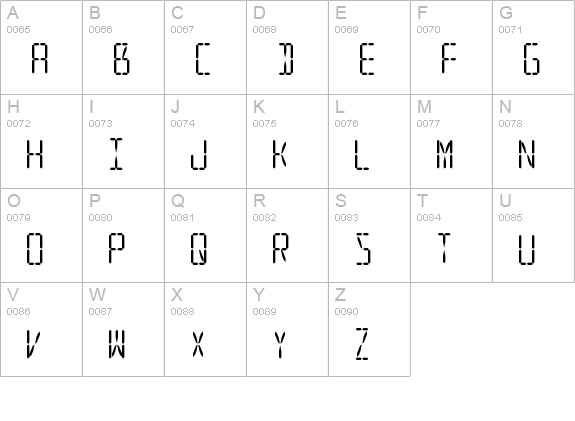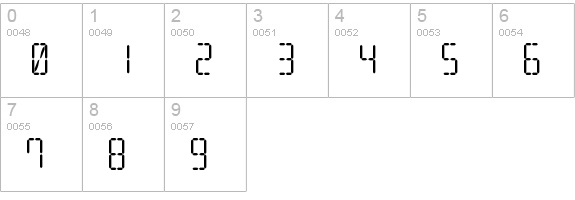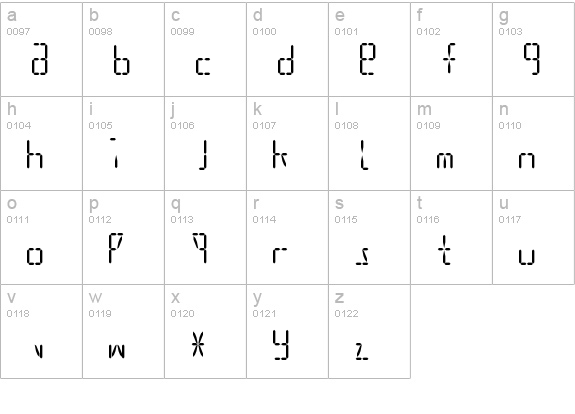
LED 16 Segment 2 Font Details
The LED 16 Segment 2 font is a stunning display font that will bring a touch of modernity and sophistication to your designs. With its sleek and sharp edges, this font is perfect for creating eye-catching headlines, logos, and signage. The 16 segment design of this font adds a unique and futuristic look, making it ideal for projects that require a contemporary aesthetic. Whether you are designing for technology, gaming, or any other industry, the LED 16 Segment 2 font will instantly elevate your work to the next level. What's even better is that the LED 16 Segment 2 font is available for free download at FontsMarket.com. You can easily access this font and start using it in your projects without any cost. This makes it a fantastic option for designers who are looking for high-quality fonts that won't break the bank. Don't miss out on the opportunity to enhance your designs with the LED 16 Segment 2 font. Download it for free today at FontsMarket.com and let your creativity shine with this stunning display font.